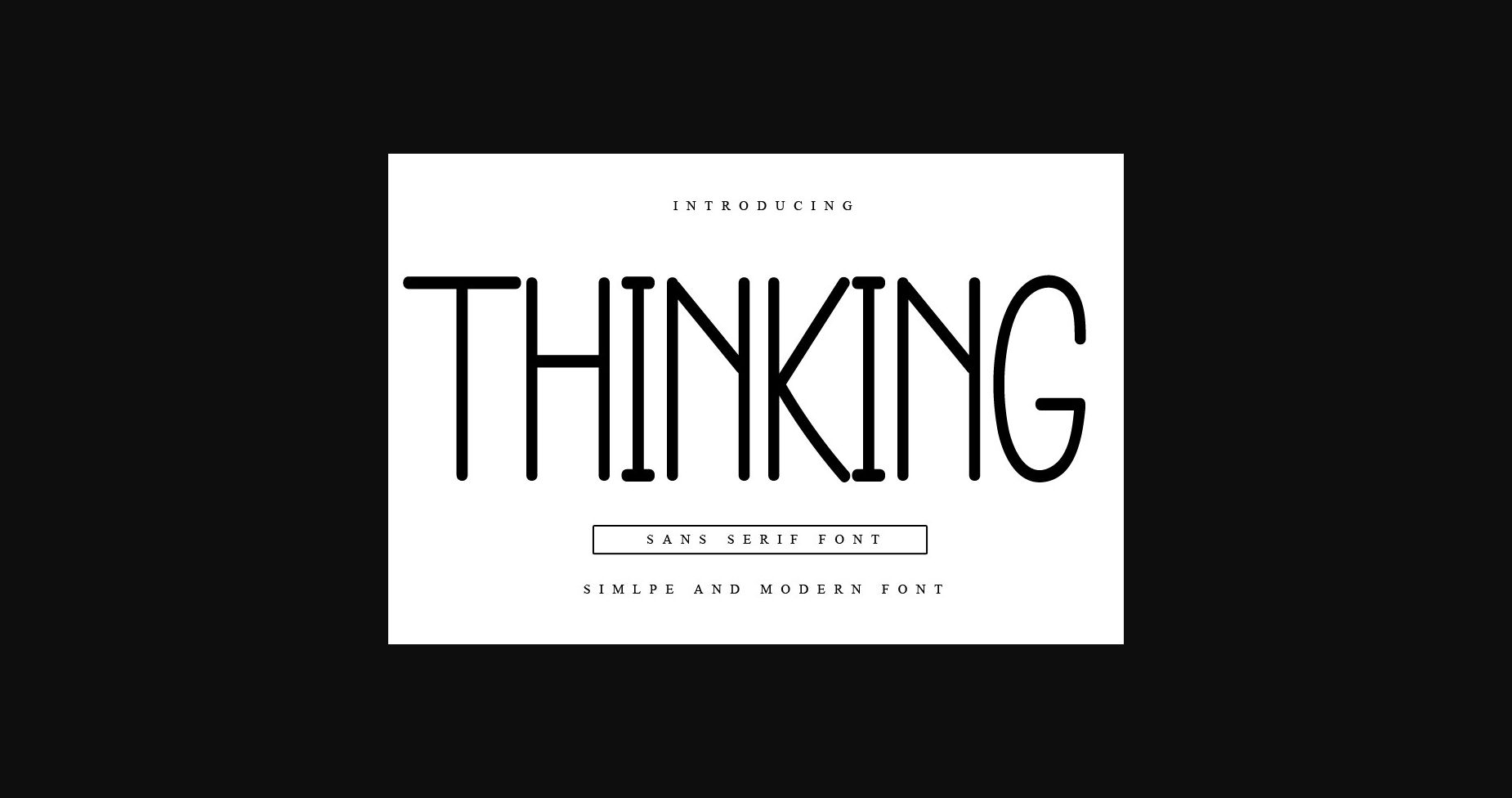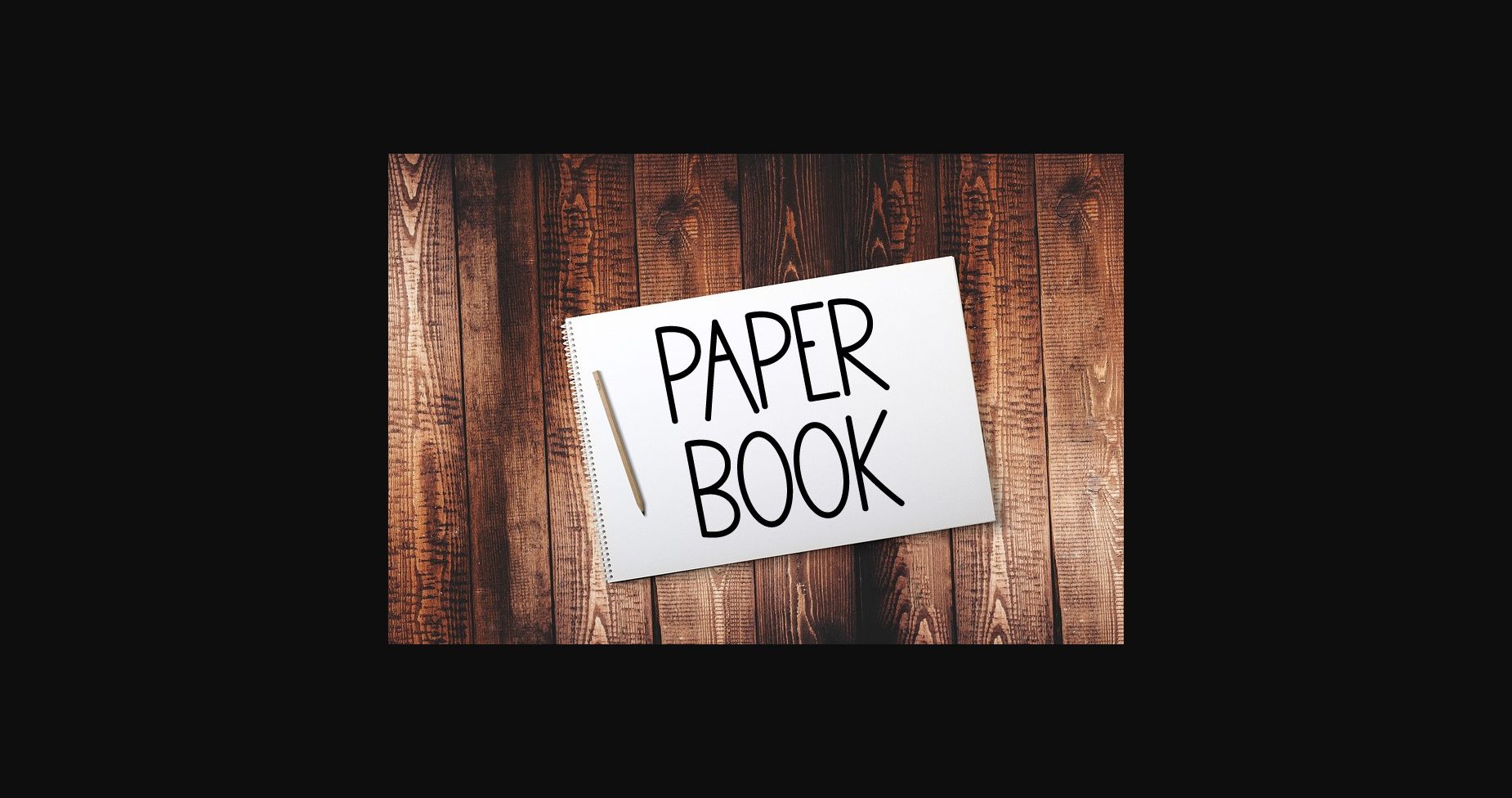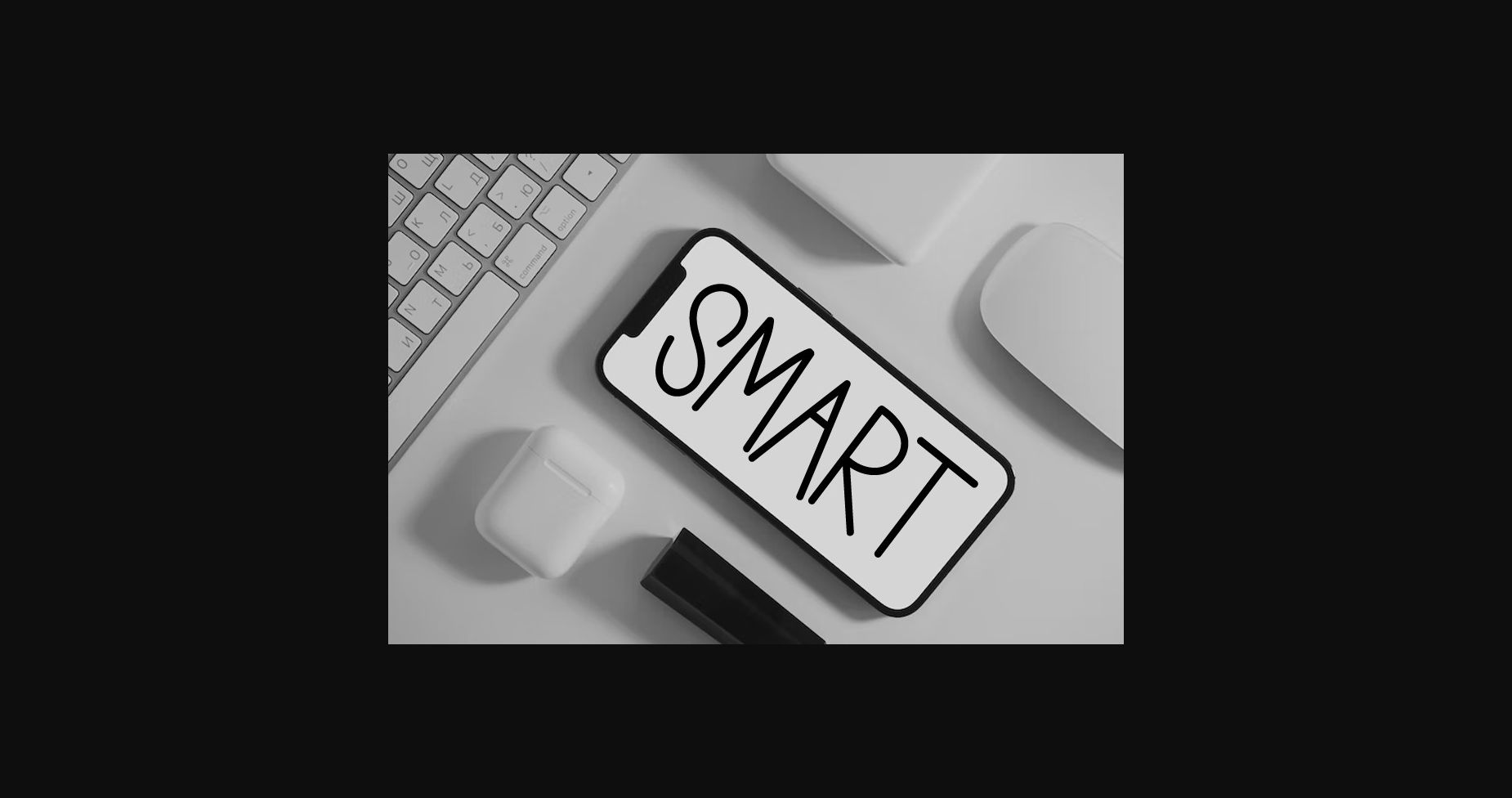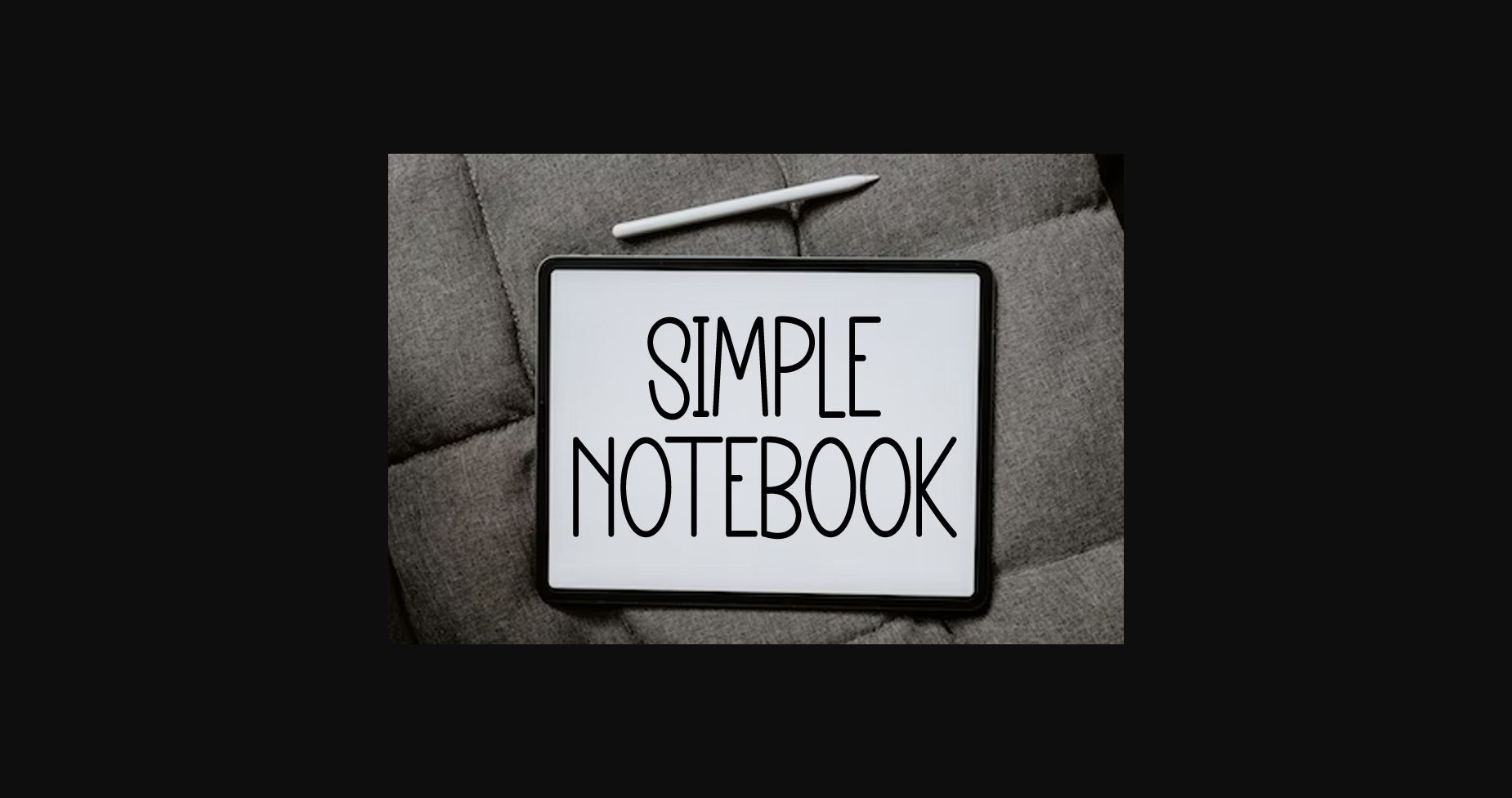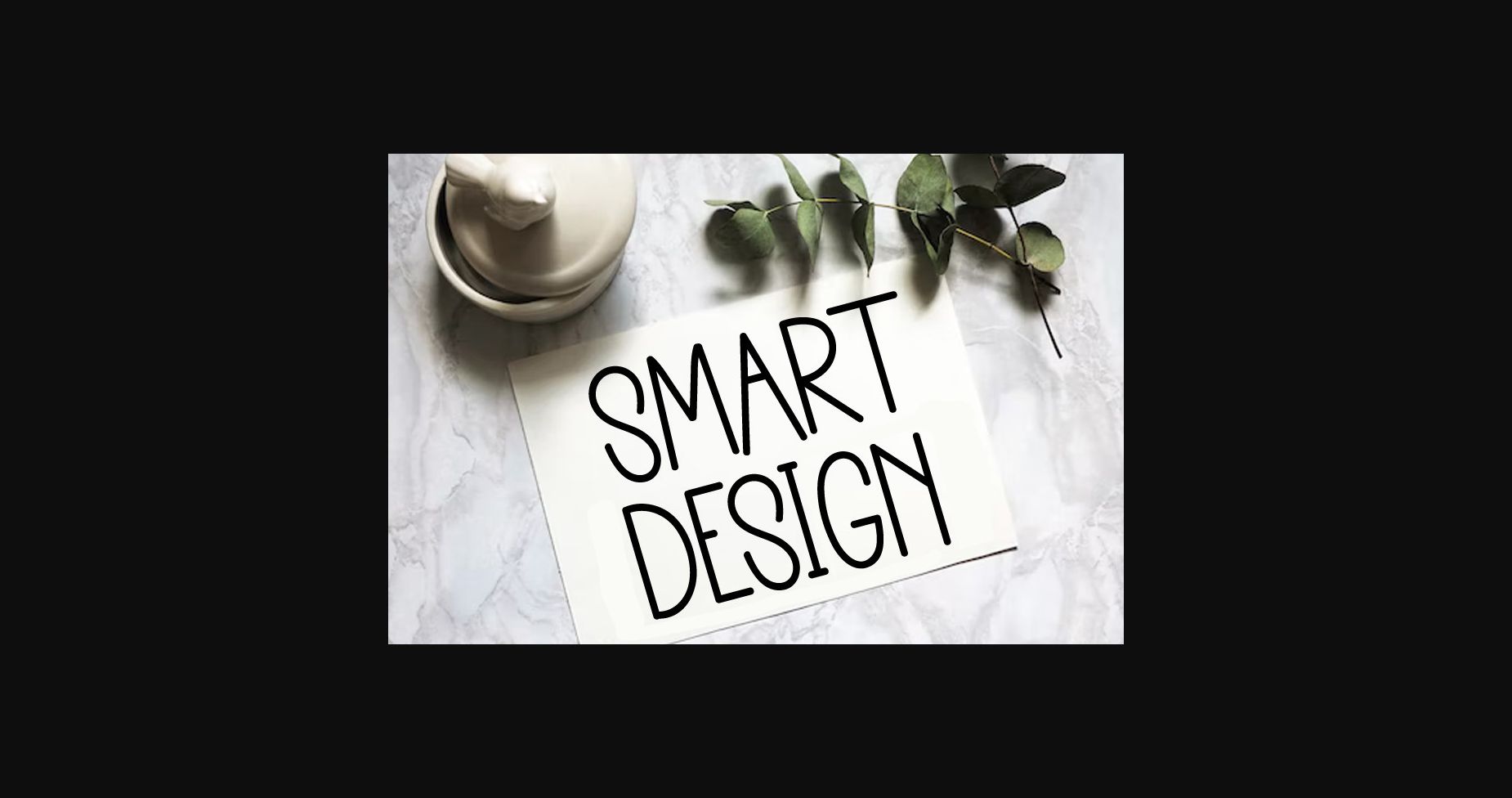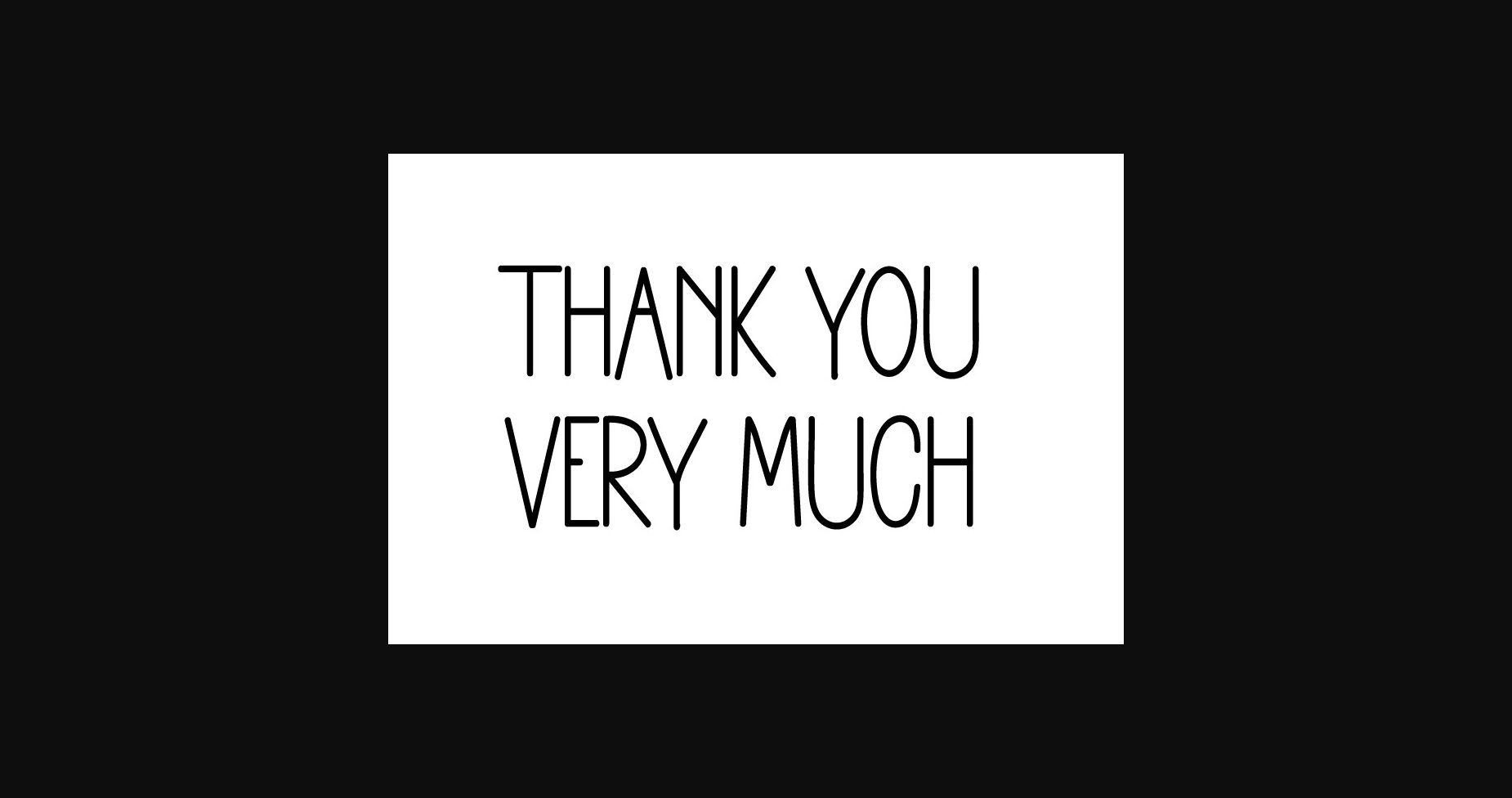
Thinking Font
About Thinking Font
Thinking is a fresh and beautiful font, good for your design purposes such as banners, cover logo mockups, wedding invitations, Id cards, flyers, and crafts. By using this Sans Serif font your business will progress and develop. Apart from that, this font is simple and unique.